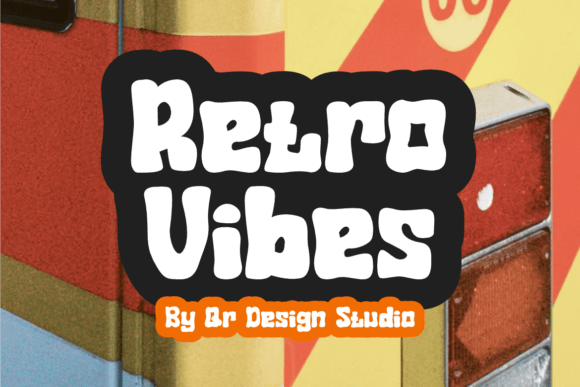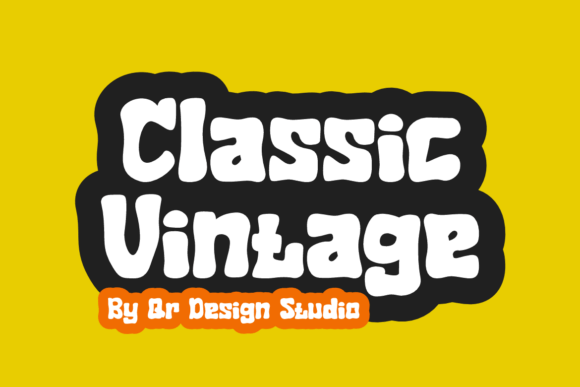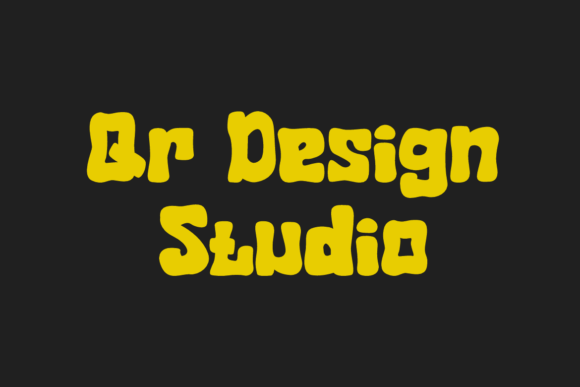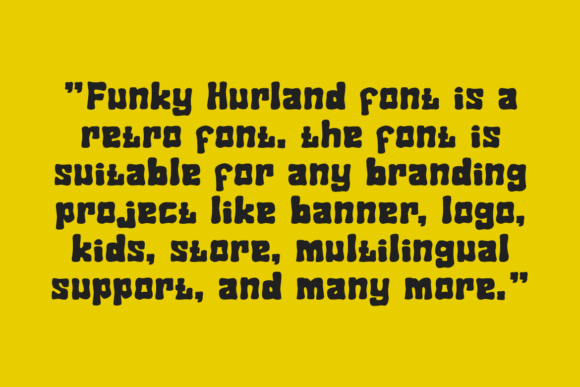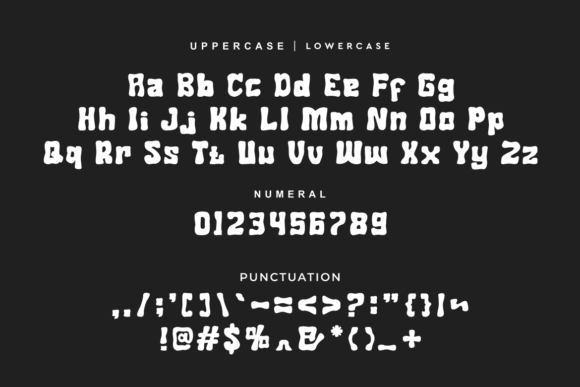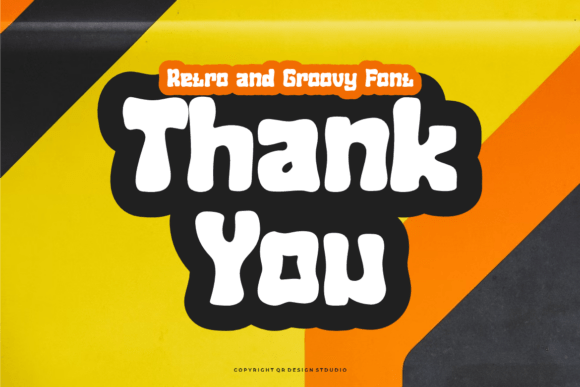
The Perfect Match for Your Next Design Project
Have you ever stared at a blank canvas, waiting for the perfect font to strike inspiration? You know that feeling when the right combination of style and personality suddenly clicks, and your design begins to take shape? That’s exactly what happens when you introduce the Funky Hurland Font into your creative process.
This bold and authentic display font is the perfect companion for any branding project, from logos to sports jerseys and everything in between. Its versatility shines in a wide range of contexts, making it an invaluable addition to your design toolkit. As a designer, you understand the importance of finding the right font to elevate your work and leave a lasting impression. With the Funky Hurland Font, you’ll be well on your way to creating designs that truly stand out.
Funky Hurland Font Key Features
- Unique Characteristics: Funky Hurland Font features a unique blend of modern and vintage elements, with a bold and playful feel.
- Font Style: Display font with a wide range of weights and styles, from light to bold, including italic and oblique options.
Funky Hurland Font Review
Overall, I’m impressed with the Funky Hurland Font. It has a unique, energetic vibe that’s perfect for adding some excitement to digital projects. ✨ The font’s bold lines and playful curves make it stand out from more traditional sans-serif fonts.
- Unique character: Funky Hurland Font has a distinctive look that’s hard to find in other fonts.
- Highly legible: Despite its playful nature, the font is still easy to read, even at smaller font sizes.
- Perfect for creative projects: The font’s energetic vibe makes it ideal for use in creative, youth-oriented, or artistic projects.
One thing to keep in mind is that Funky Hurland Font may not be the best choice for formal or professional projects. ⚠️ The font’s bold lines and playful curves can come across as too casual or immature for more serious applications.
I’d give Funky Hurland Font a solid 4 out of 5 stars. While it’s not the perfect font for every project, it’s a great addition to any designer’s toolkit. With its unique character and high legibility, it’s perfect for adding some excitement to digital projects.
Tips for Getting the Most Out of Funky Hurland Font
Here are some tips for getting the most out of Funky Hurland Font:
- Use it sparingly to add a touch of personality to your design.
- Pair it with other fonts to create a unique and eye-catching look.
- Experiment with different font sizes and styles to achieve the desired effect.
Funky Hurland Font is commonly used for:
- Music and entertainment branding.
- Food and beverage packaging.
- Alternatives to Funky Hurland Font
The Great Vibes Font is a modern, elegant script font ideal for creating a sophisticated and eye-catching design. It’s perfect for use in invitations, greeting cards, and titles. Great Vibes Font is more refined and polished compared to Funky Hurland Font, which is more playful and whimsical.
Pacifico Font is a beautiful, cursive font that exudes a sense of relaxation and tranquility. It’s perfect for use in designs that require a laid-back and casual tone, such as beach-themed designs or wellness-related materials. Pacifico Font has a more subtle and understated feel compared to Funky Hurland Font, which is bolder and more attention-grabbing.
Alex Brush Font is a elegant and refined script font that’s perfect for use in high-end designs, such as luxury branding, wedding invitations, and fine art prints. It’s more sophisticated and polished compared to Funky Hurland Font, which is more playful and eclectic.
Carolyna Pro Font is a modern, elegant script font that’s perfect for use in designs that require a touch of sophistication and glamour. It’s ideal for use in fashion branding, luxury packaging, and high-end marketing materials. Carolyna Pro Font has a more refined and polished feel compared to Funky Hurland Font, which is more playful and whimsical.